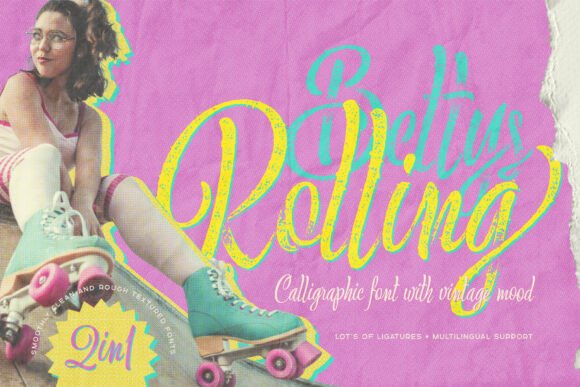
Rolling into the Spotlight: A Deep Dive into Bettys Rolling Script Font
I’ll never forget the design project that led me to discover Bettys Rolling script font. I was working on a retro-themed poster for a local event, and I was struggling to find the perfect font that captured the vibrant energy of the 1980s. That’s when I stumbled upon Bettys Rolling, and it was love at first sight! ✨ The fluid, dynamic strokes and textured details instantly transported me to the neon-lit roller skating rinks of the 80s.
The Font that Brings the 80s to Life
Bettys Rolling is more than just a font – it’s a celebration of rhythm, movement, and the unmistakable charm of the 80s skate scene. This calligraphic textured script font set consists of two fonts: one with a textured, rough version and another with a smooth, clean shape. The textured details add a retro, hand-painted feel, reminiscent of vintage signage and old printed ads aesthetics.
Here’s what I love about Bettys Rolling:
- ✅ Fluid, dynamic strokes that mimic the movements of skaters
- ✨ Textured details that add a retro, hand-painted feel
- ✅ Perfect for retro branding, posters, and apparel
- ✅ Blends nostalgia with a modern edge
And here are some minor quirks to consider:
- ⚠️ Some characters may be a bit too condensed for certain design applications
- 🤔 Limited use of uppercase letters, but the font still looks great in all lowercase
The Story Behind Bettys Rolling
Bettys Rolling was inspired by the vibrant energy of 1980s roller skating culture. The designer wanted to capture the carefree joy and sense of motion of the era, and created a font that would bring that nostalgia to life. The textured details and fluid strokes were designed to evoke the feeling of gliding across a neon-lit rink.
| What is the best use for Bettys Rolling? | Bettys Rolling is perfect for retro branding, posters, and apparel. It’s ideal for designs that need a bold, energetic feel. |
| Is Bettys Rolling suitable for body text? | No, Bettys Rolling is best used for headlines and titles. Its condensed style and textured details make it less suitable for body text. |